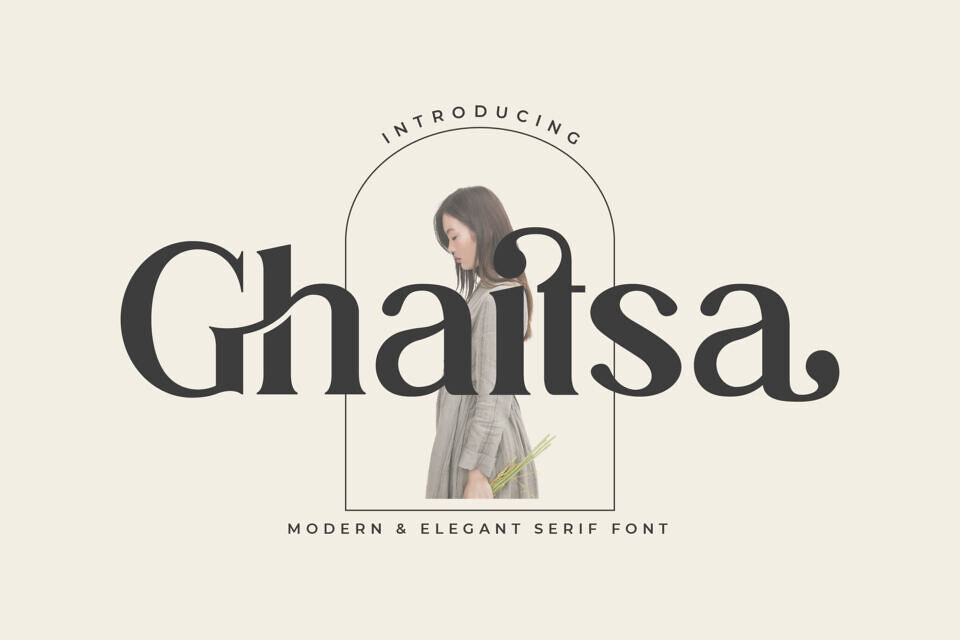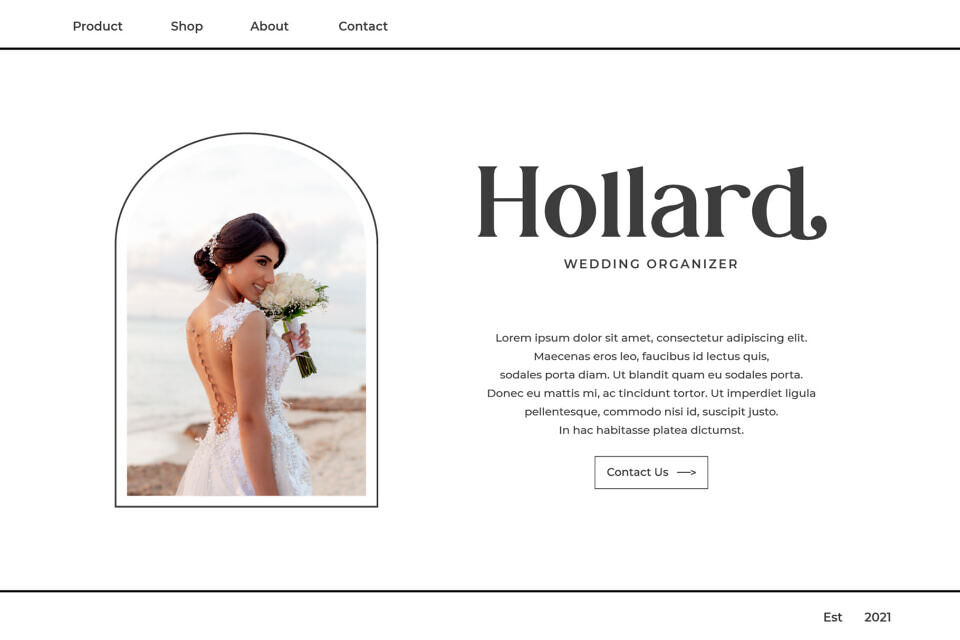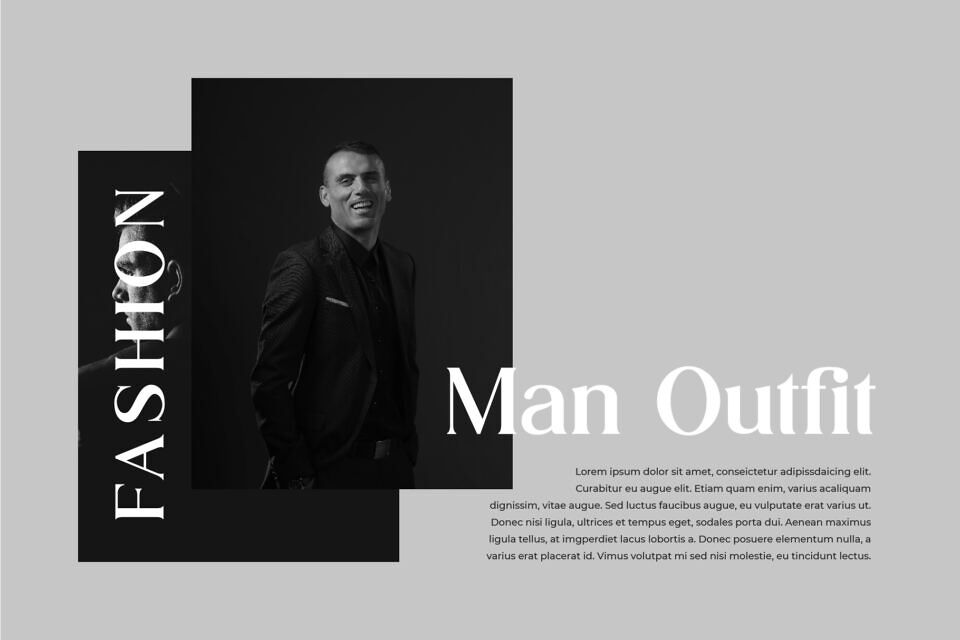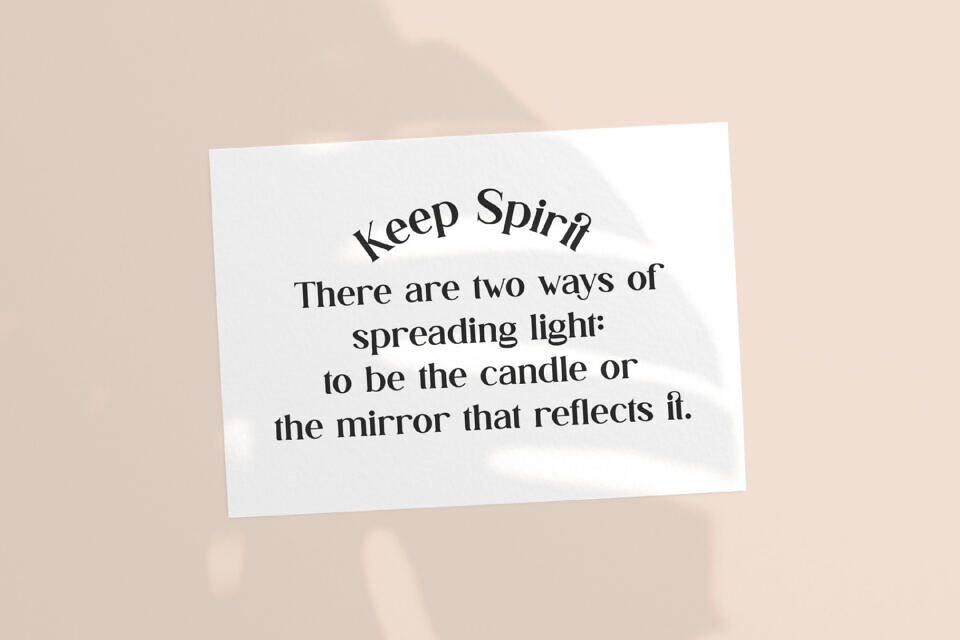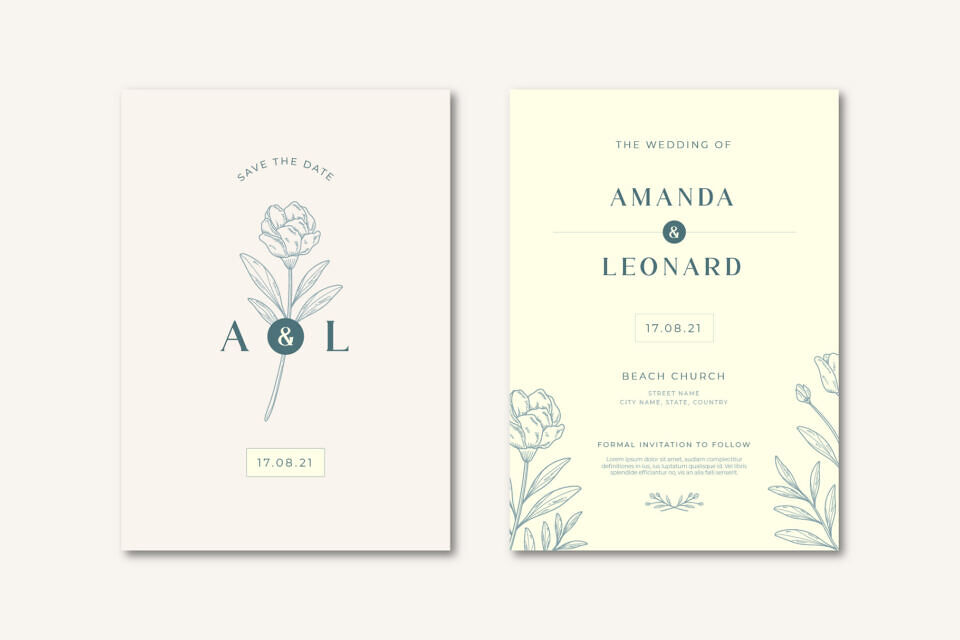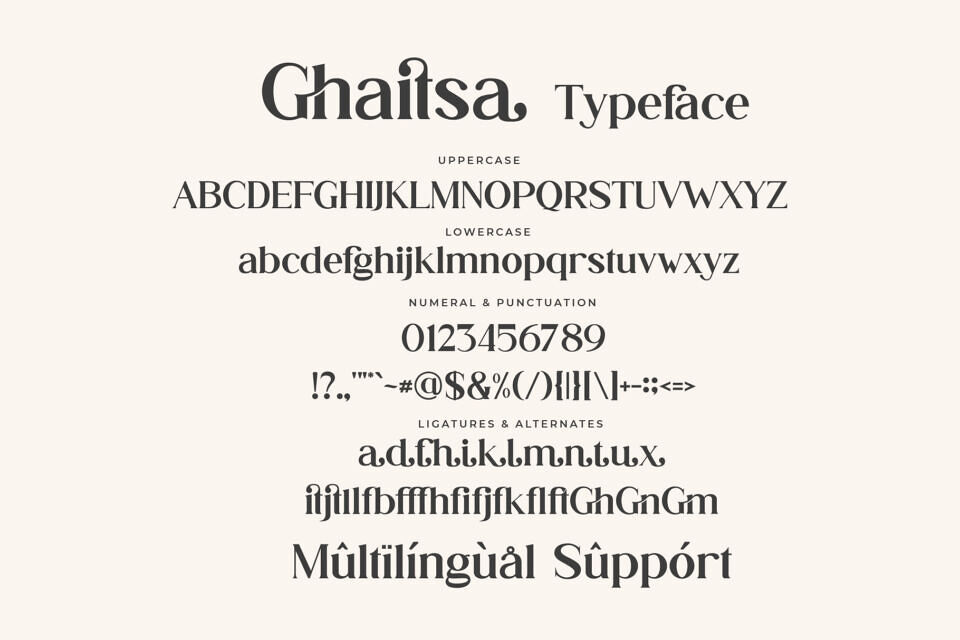
Ghaitsa Font
Ghaitsa is an elegant and authentic serif font. It can be used for various purposes such as logos, wedding invitations, headings, t-shirts, letterhead, signage, labels, news, posters, badges and so much more.